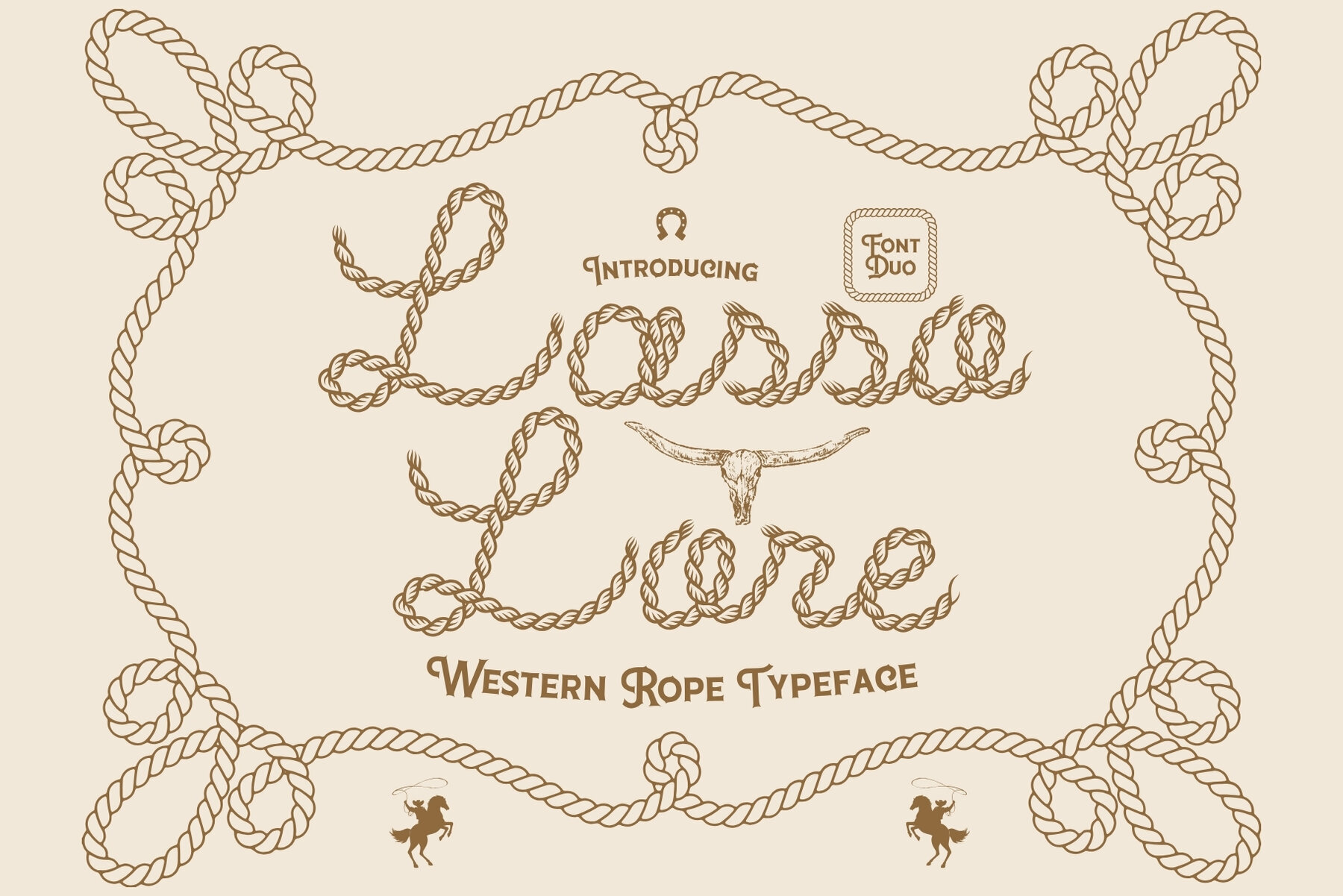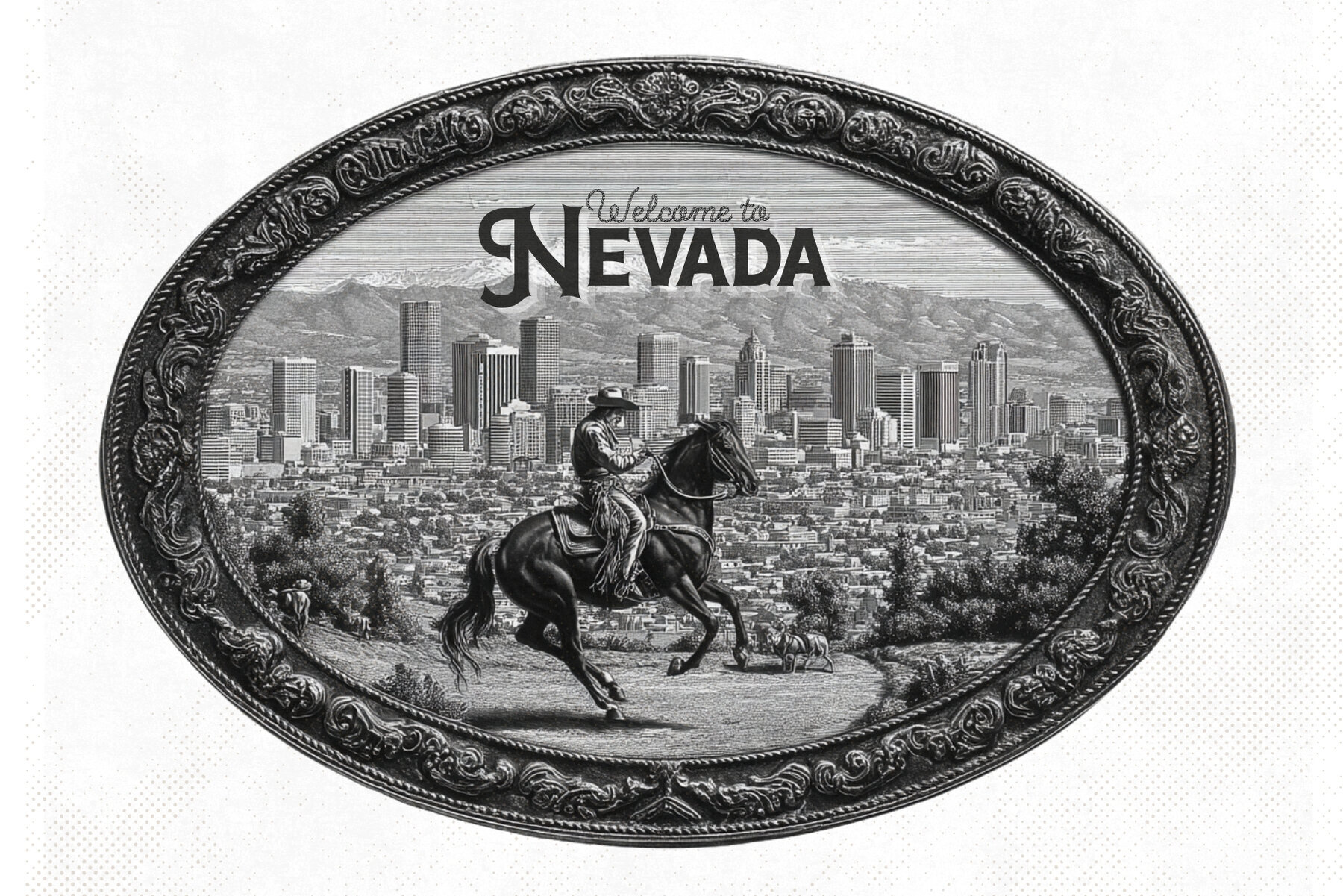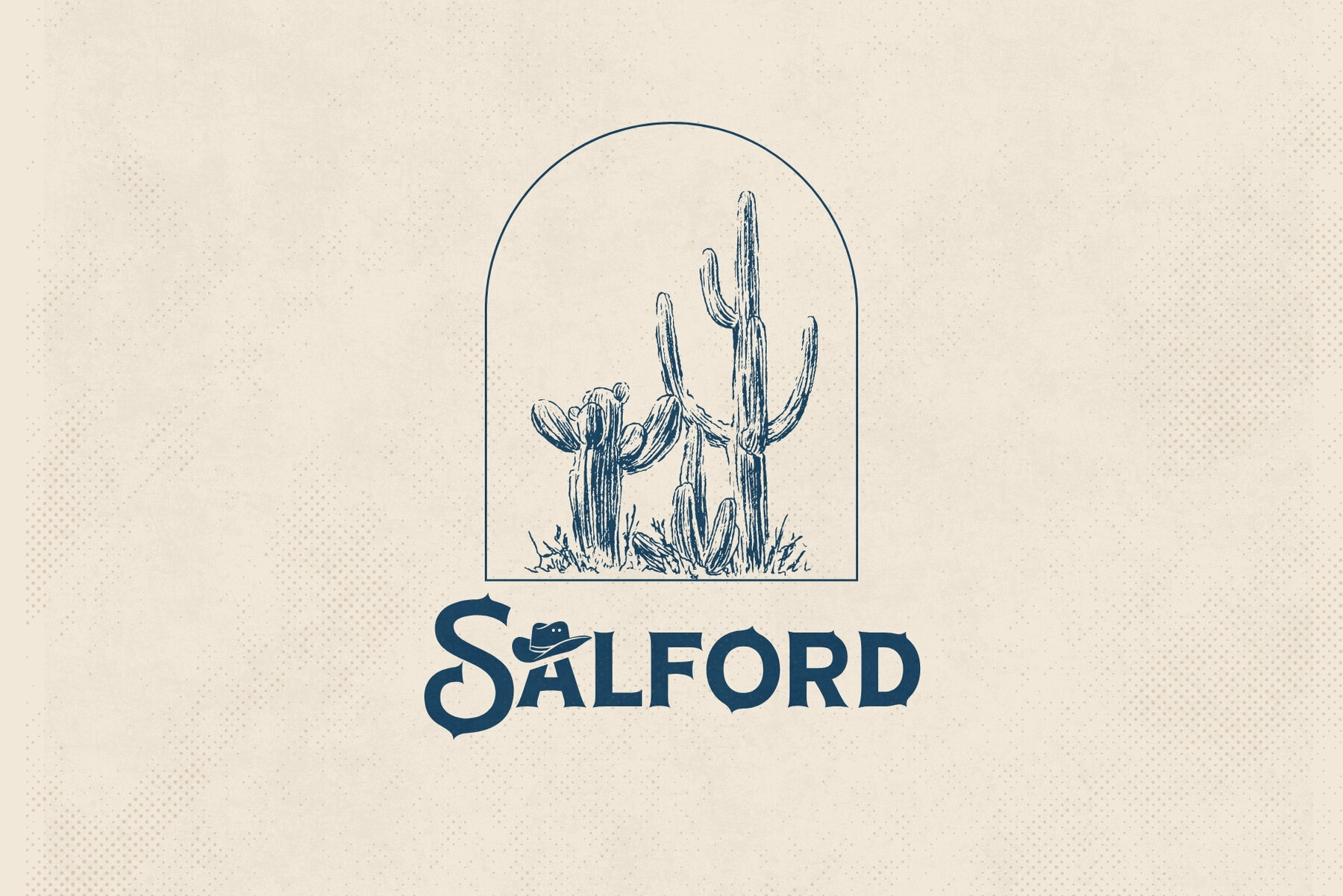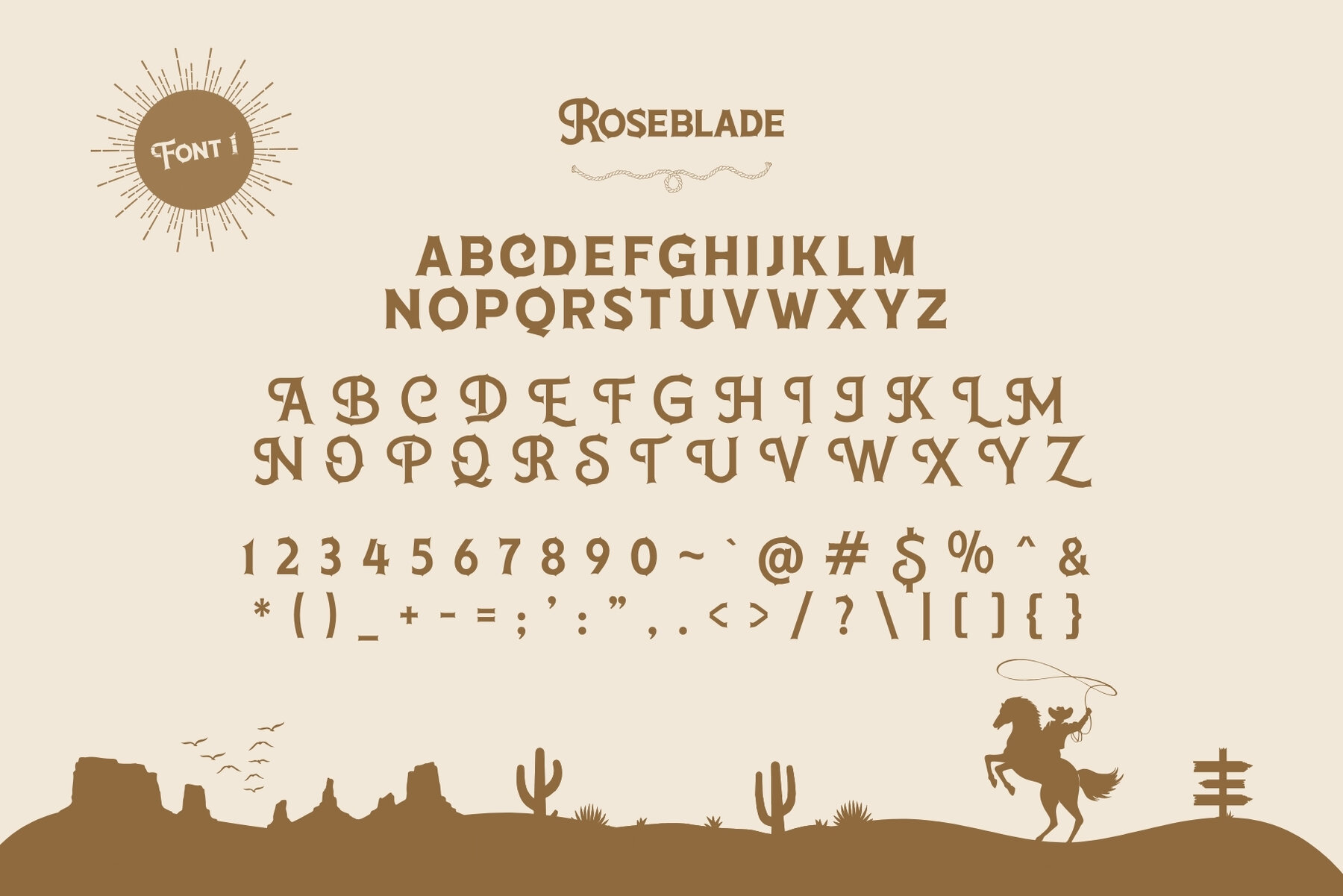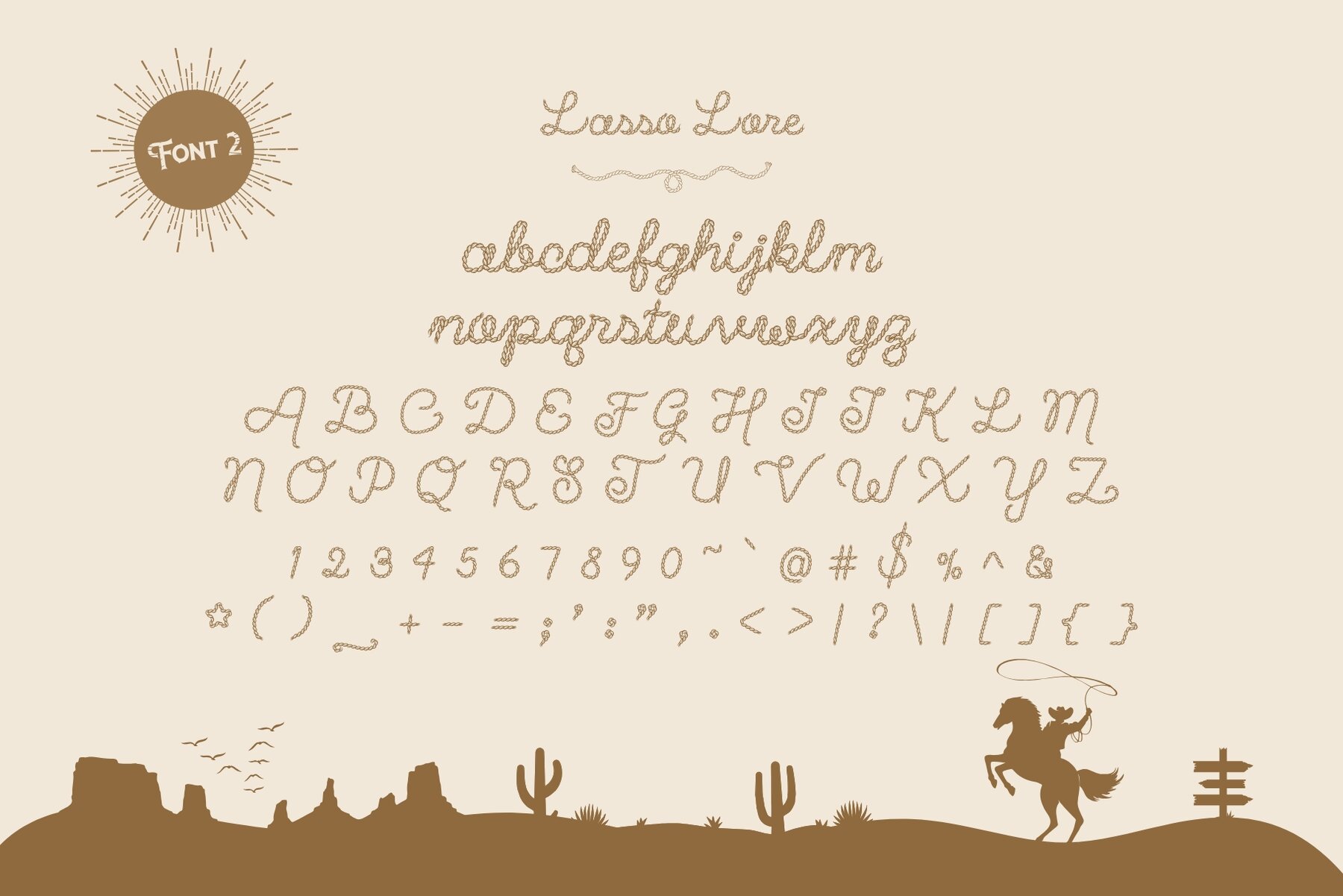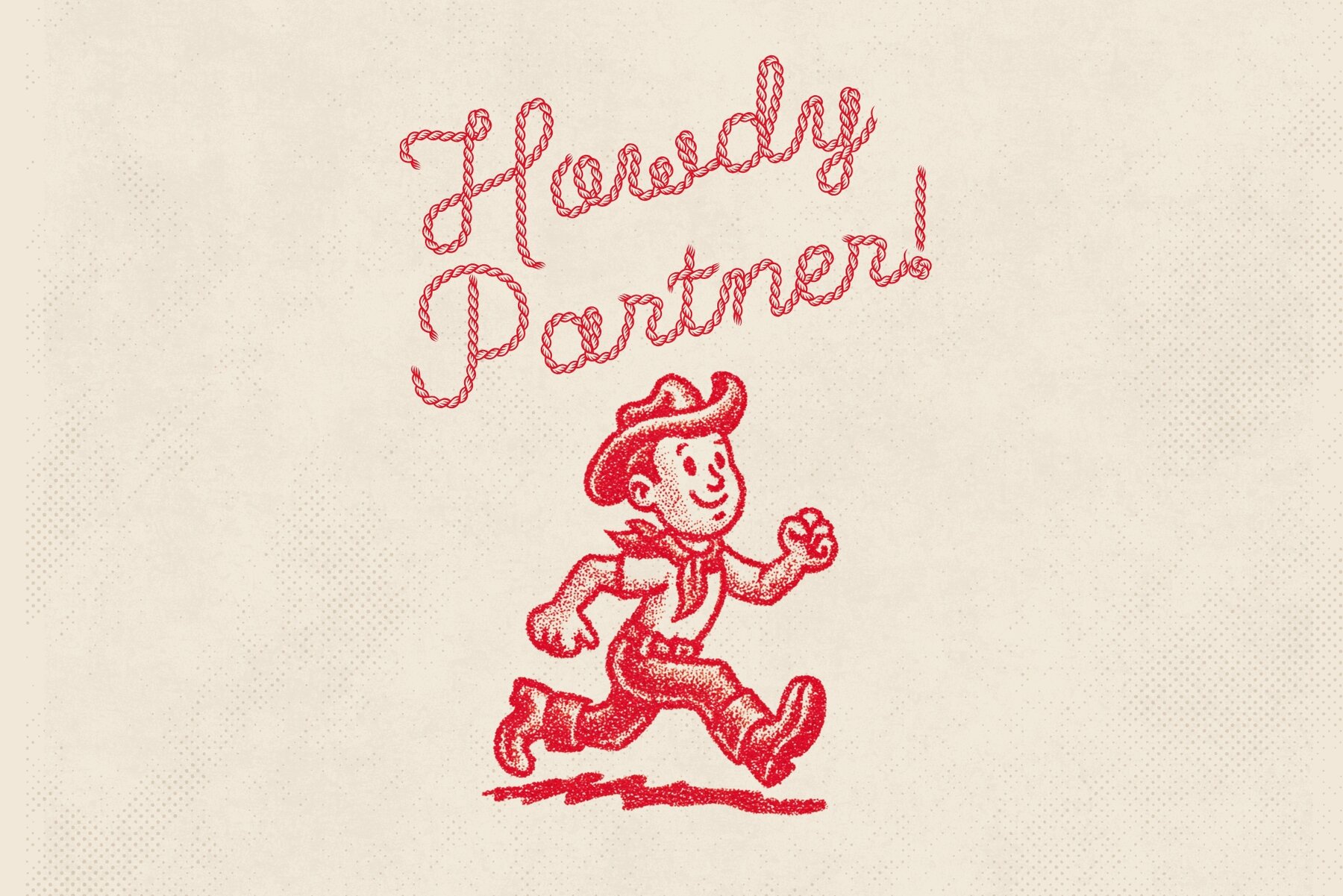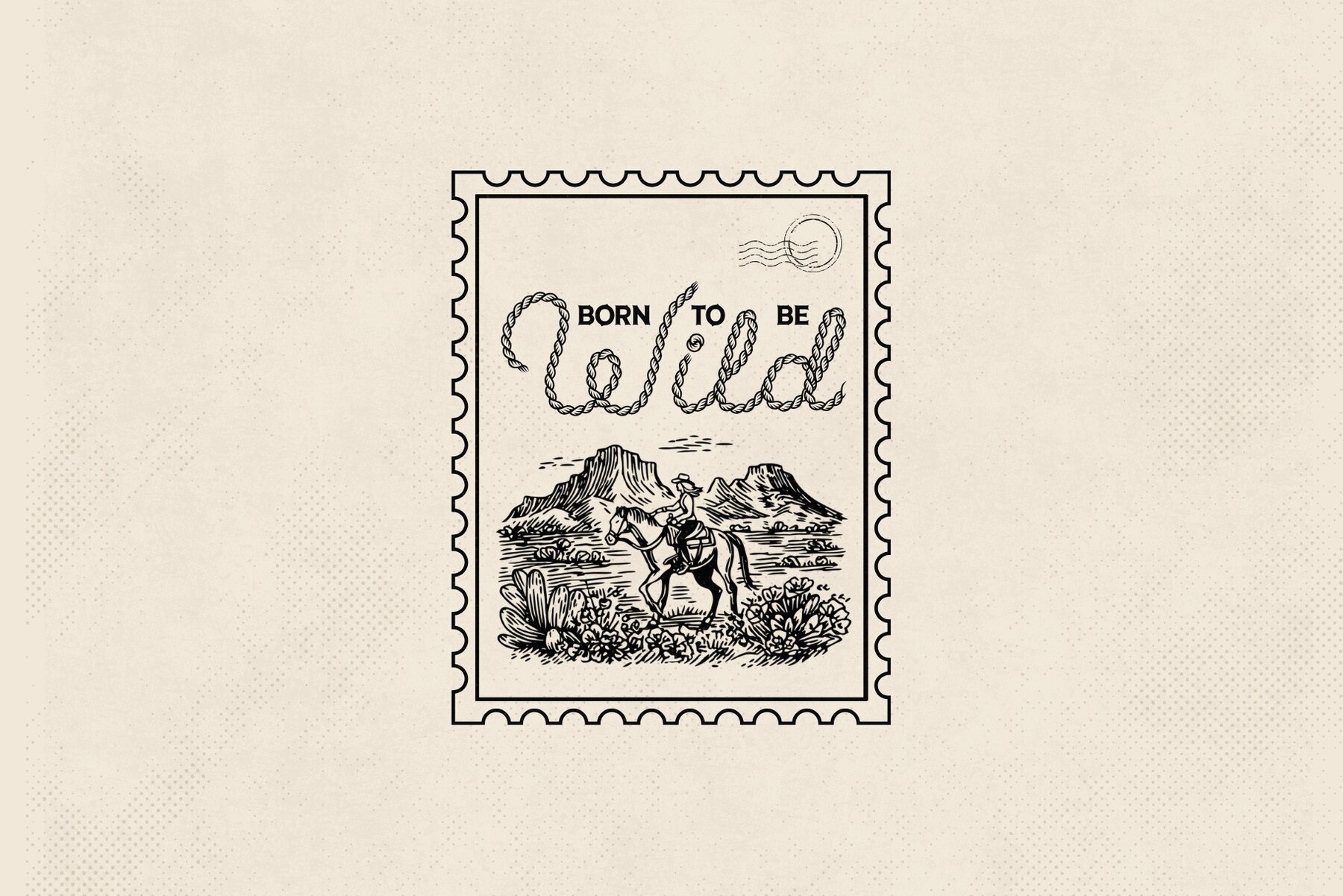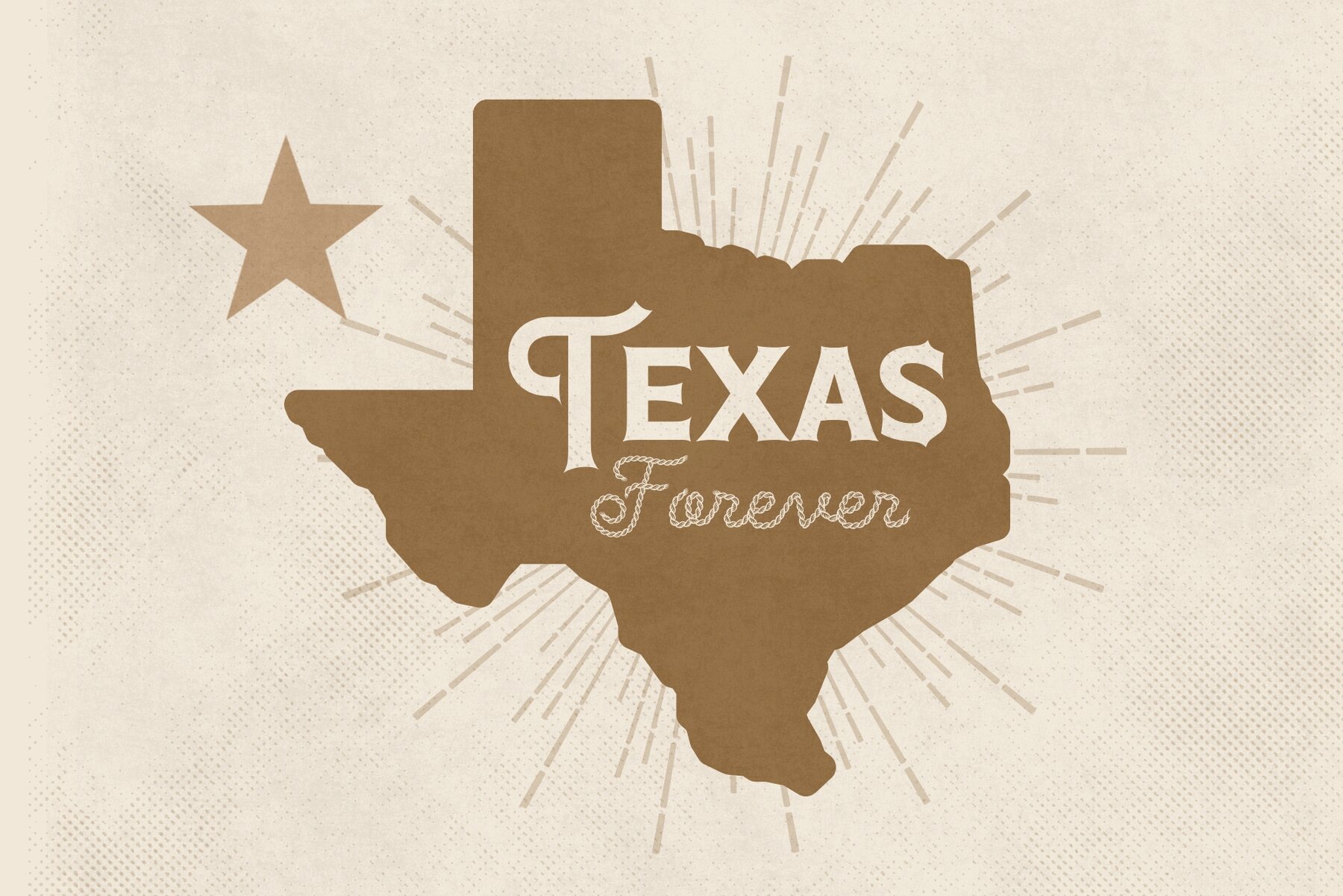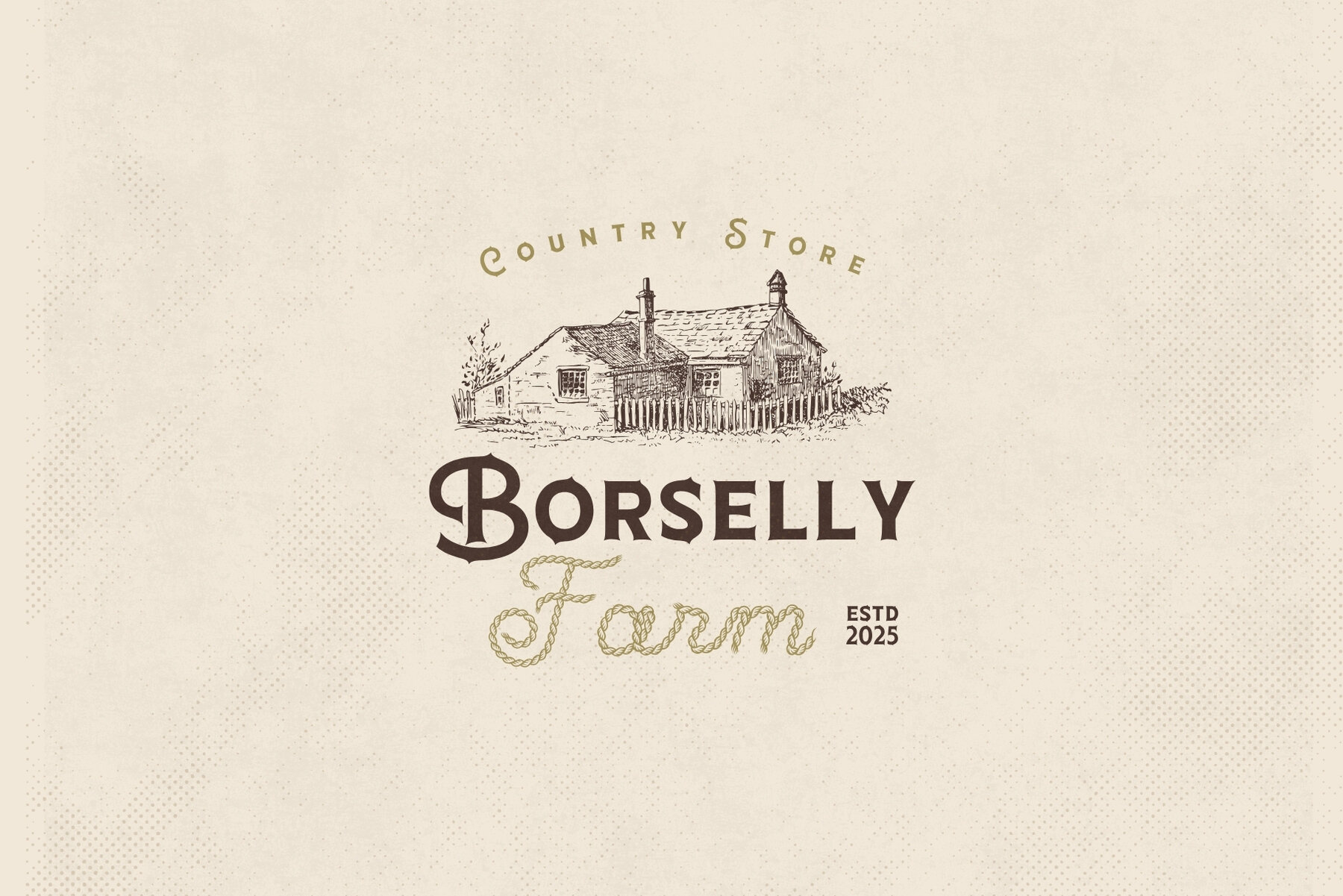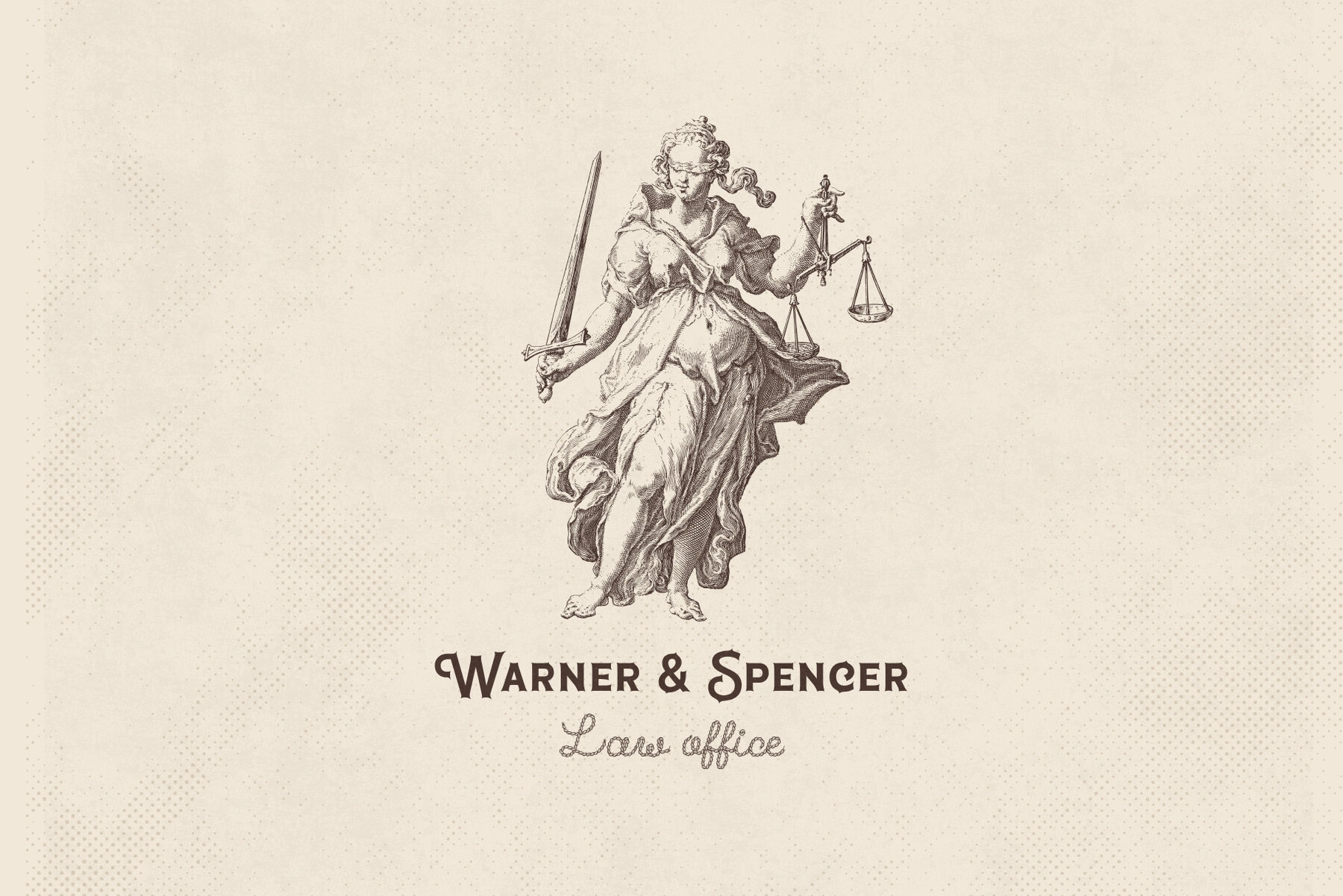
Lasso Lore Font
Saddle up for Lasso Lore, a bold and adventurous rope-inspired typeface that captures the grit, charm, and spirit of the Wild West. Carefully crafted to mimic the curves and twists of real cowboy lariats, this display font ropes in attention and doesn’t let go. Perfect for logos, branding, posters, merchandise, and social media graphics, Lasso Lore adds rustic flair and authentic Western personality to any project. Whether you're building a rugged ranch brand or a retro Americana vibe, this font brings the cowboy soul front and center. But that’s not all, Lasso Lore comes paired with its perfect partner: Roseblade, a clean, sharp, and beautifully balanced secondary font designed to complement the rope style effortlessly. Use them together for stunning contrast and visual hierarchy in your designs.